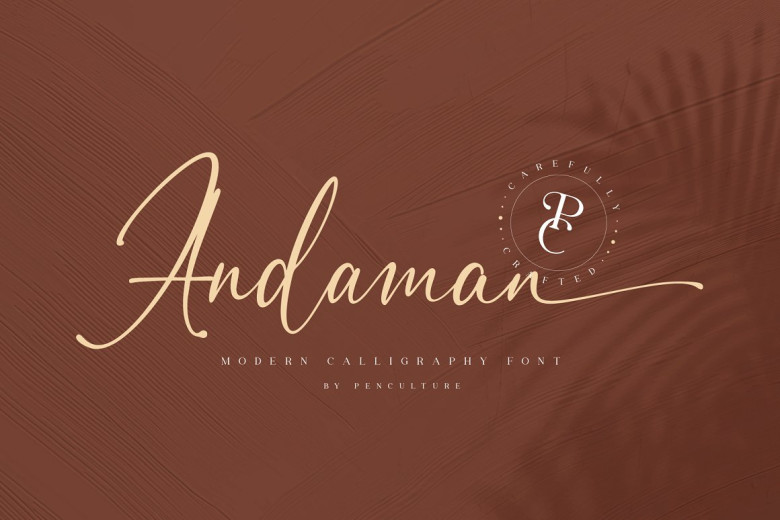
Andaman font was carefully designed as a modern font with features such as ligatures and artificial swashes to complement branding projects, logo designs and fashion projects.
Andaman Calligraphy Script Font